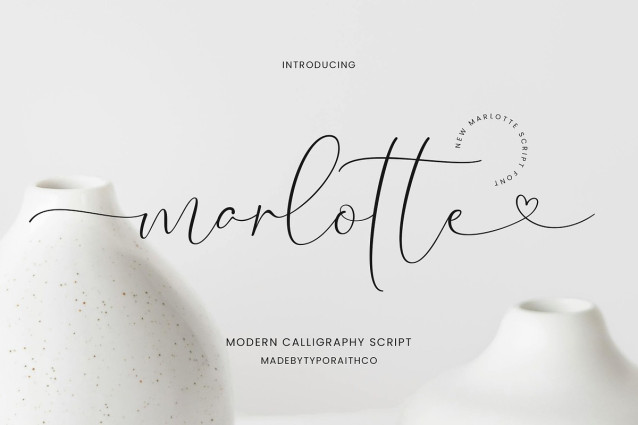
Marlotte Handwritten Font
Marlotte Handwritten Font is a delicate and graceful modern calligraphy script designed to bring softness, elegance, and charm to your creative projects. With its flowing strokes, refined curves, and natural handwritten feel, Marlotte is perfect for designs that need a romantic and sophisticated touch.
Whether you’re creating wedding stationery, branding, or social media content, this script font adds warmth and personality while staying beautifully minimal and timeless